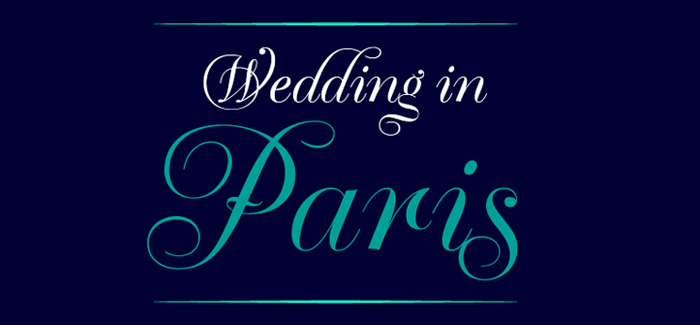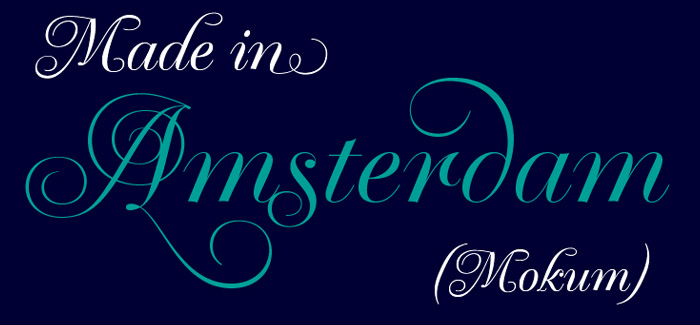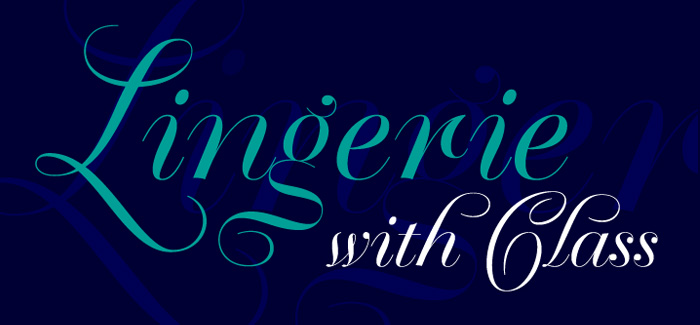
Krul font
Krul font is a typographic interpretation of the lettering style created by Dutch letter painter Jan Willem Joseph Visser at the end of the 1940s, which decorated the traditional brown bars of Amsterdam. In the beginning, these letters were strongly associated with the pubs connected to the Amstel brewery, given that Visser was the company’s official painter. As the years passed, the style became increasingly popular, and various business owners in Amsterdam and other Dutch and Belgian cities also commissioned its use. In the 1970s and 1980s, Leo Beukeboom, another talented letter painter, continued and expanded this lettering tradition while employed under the Heineken brand. Much of his work can still be found in the Jordaan and De Pijp neighborhoods in Amsterdam.
The Amsterdamse Krulletter, or Amsterdam’s curly letter, is strongly inspired by the calligraphic works of the 17th century Dutch writing masters, of which Jan van den Velde was a central figure. However, distinct characteristics of this style, for example, its unusual and beautiful ‘g’, originate from a model that was published by Johannes Heuvelman in 1659, which J. W. J. Visser referenced.
Typographic circles have somehow overlooked the Amsterdamse Krulletter and its heritage. The Dutch calligraphic hands preceded and influenced the formal English penmanship which has inspired numerous typefaces in the Copperplate style. In contrast, the models from van den Velde, Heuvelman, and Jean de la Chambre, among others, are a missing chapter in Dutch typographic history, and had never been turned into typefaces until now.
Conscious of the cultural and identity issues that arise in reviving a unique style, and concerned about the speed with which the lettering style was disappearing, Ramiro Espinoza focused the project of designing ‘Krul’ on digitally recreating the calligraphic complexity of these beautiful letters. Created through several years of research, ‘Krul’ is not a direct digitization of the Amsterdamse Krulletter, but instead, an interpretation that incorporates numerous alternative characters absent in the original model, and improves upon details where necessary, resulting in an optimal performance on the printed page. The Krul font is presented in Open Type format, with an abundance of intricate ligatures, fleurons, and swashes, which permit the creation of numerous calligraphic effects. The very high contrast and rhythm of the strokes in this typeface make it especially suited for media applications conveying a sense of elegance and sophistication. Designers of feminine magazines, advertisements, and corporate identities within the fragrance and fashion industries will find in this typeface to be an extremely useful and appropriate resource.